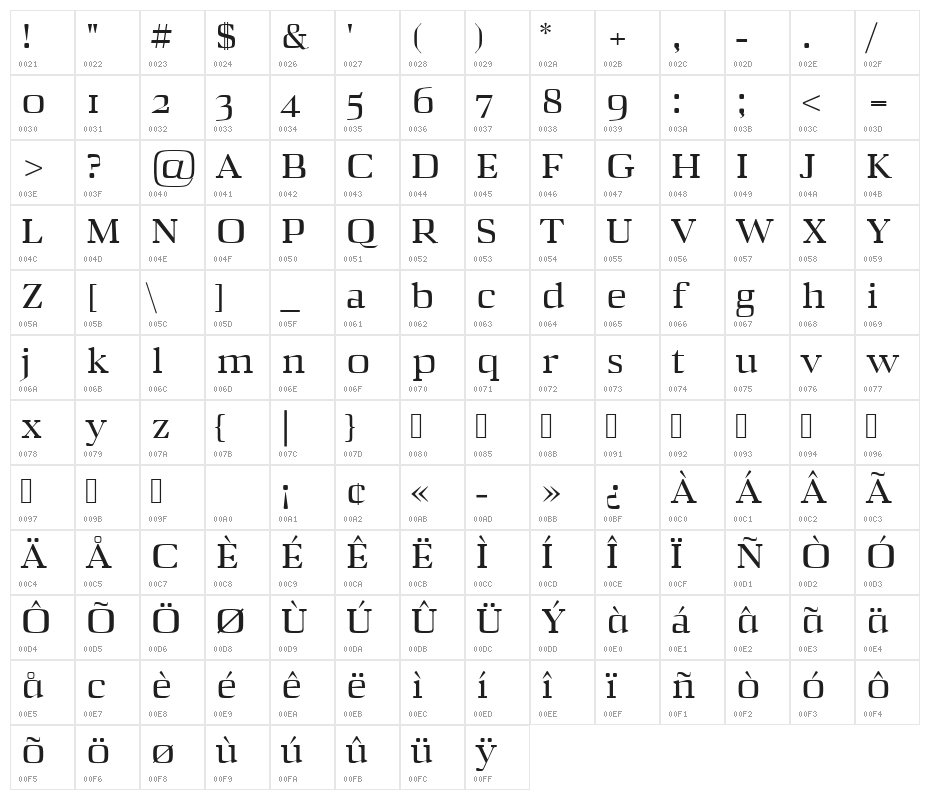
Zahra Regular Font
Zahra Regular Description
This font exhibits a modern and elegant serif style, characterized by its sharp, angular serifs and clean lines. The uppercase letters are bold and commanding, with a slight contrast between thick and thin strokes, adding a touch of sophistication. The lowercase letters maintain a consistent style, with unique features such as the distinctive tail on the 'g' and the curved leg of the 'k'. The numerals are well-proportioned, offering clarity and readability. Special characters are designed with the same attention to detail, ensuring a cohesive look across all glyphs.